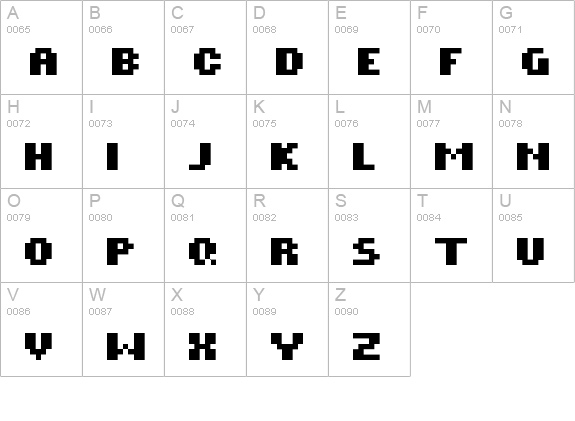
ROTORcap Bold Font Details
ROTORcap Bold is a strong, high-contrast variant in the ROTORcap typeface family \xE2\x80\x94 well suited to headlines, attention-grabbing titles, and strong calls-to-action.
ROTORcap Bold is a striking and versatile typeface that exudes modernity and sophistication. With its bold and attention-grabbing design, this font is perfect for making a strong visual impact in various projects, from branding to advertising to web design. The clean lines and sharp edges of ROTORcap Bold give it a sleek and futuristic look that is sure to captivate audiences. What sets ROTORcap Bold apart is not just its aesthetic appeal, but also its accessibility. This premium font is available for free download at FontsMarket.com, making it easily accessible to designers and creatives looking to elevate their work without breaking the bank. Whether you're working on a professional project or a personal endeavor, ROTORcap Bold is a versatile and stylish font choice that will help you make a bold statement.